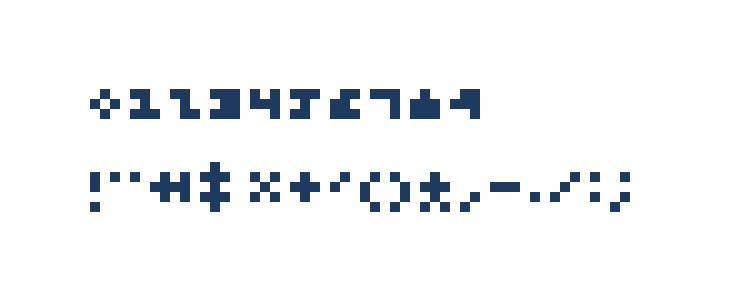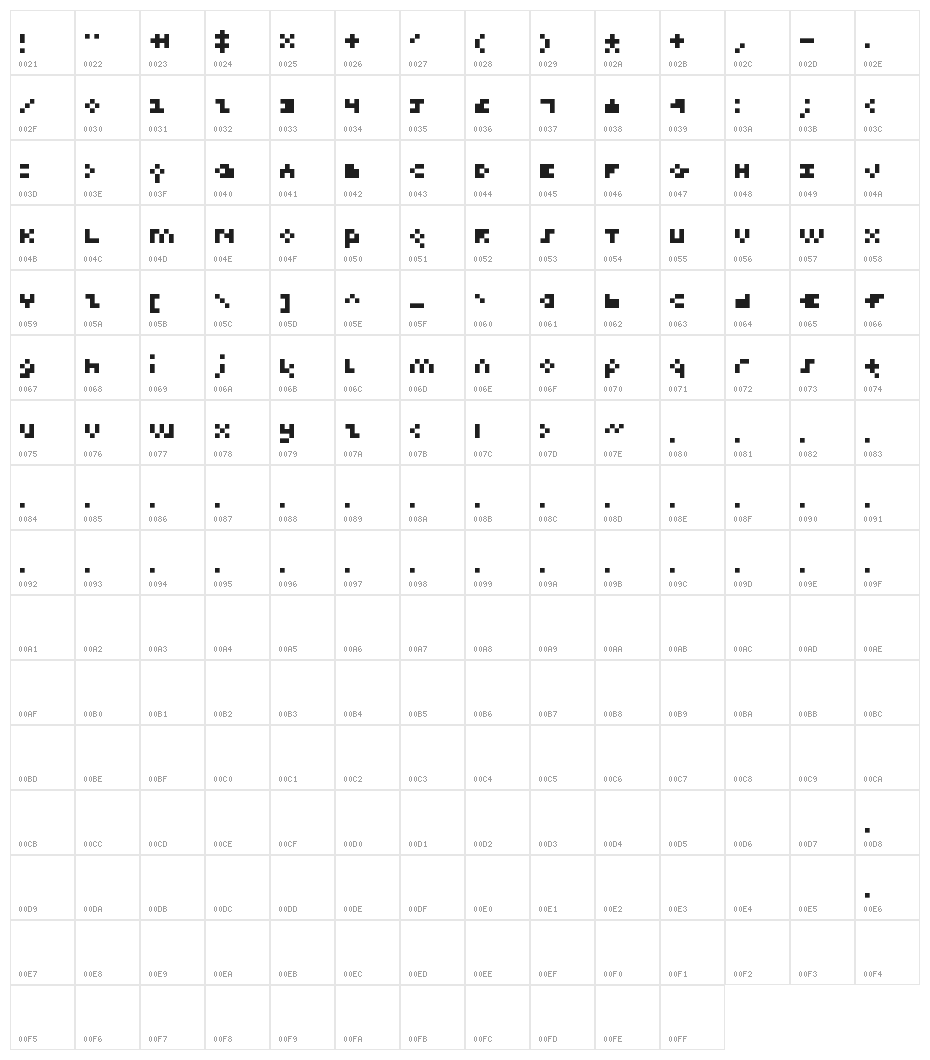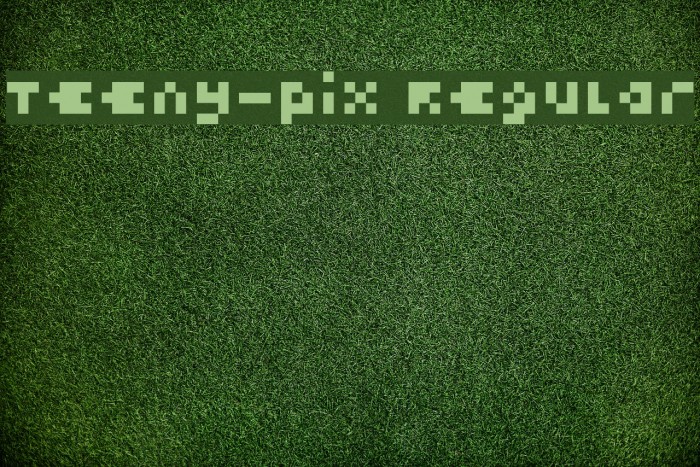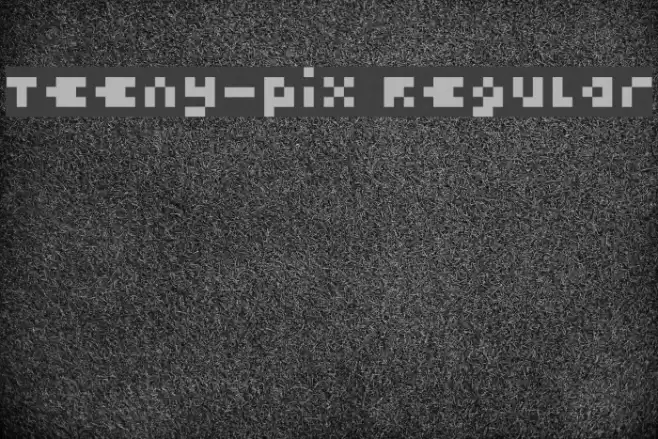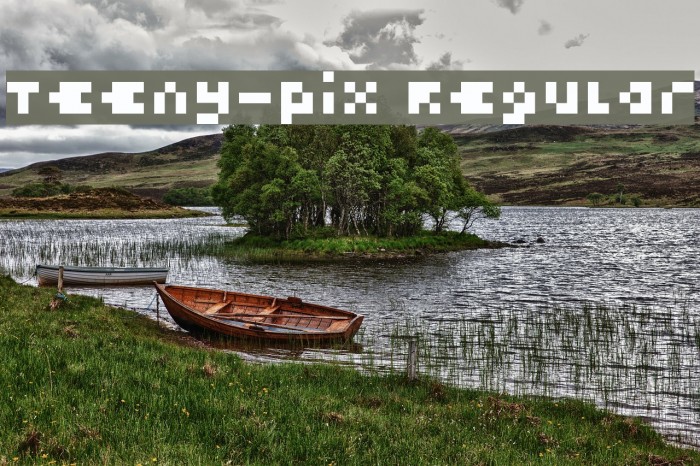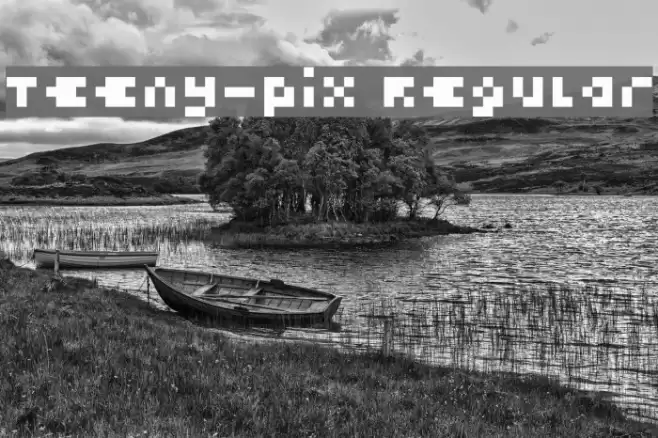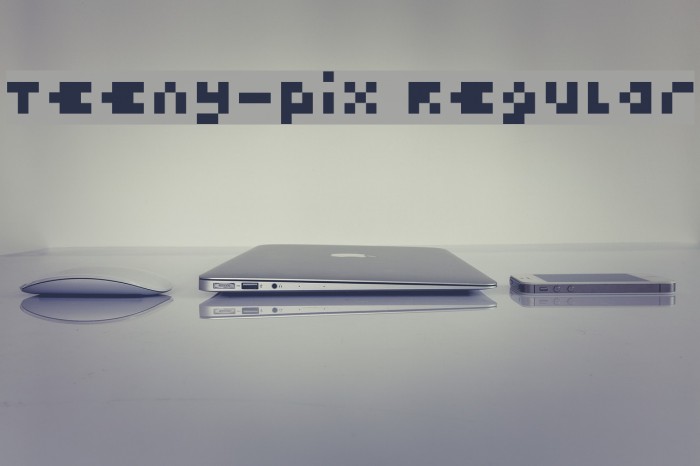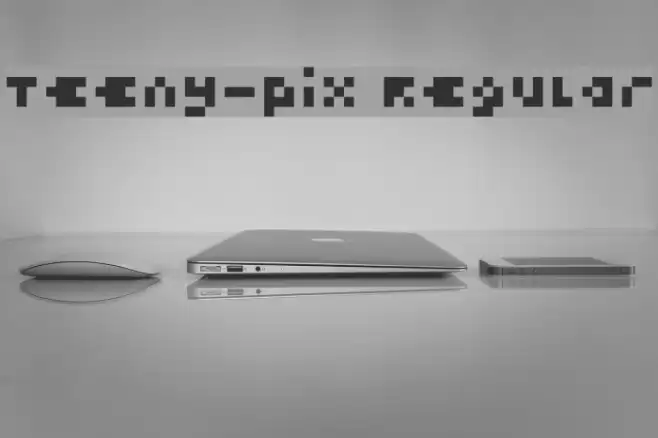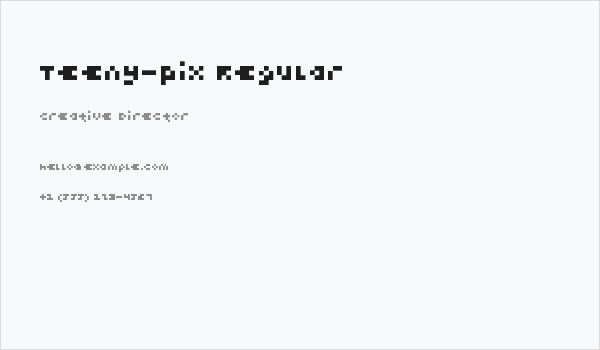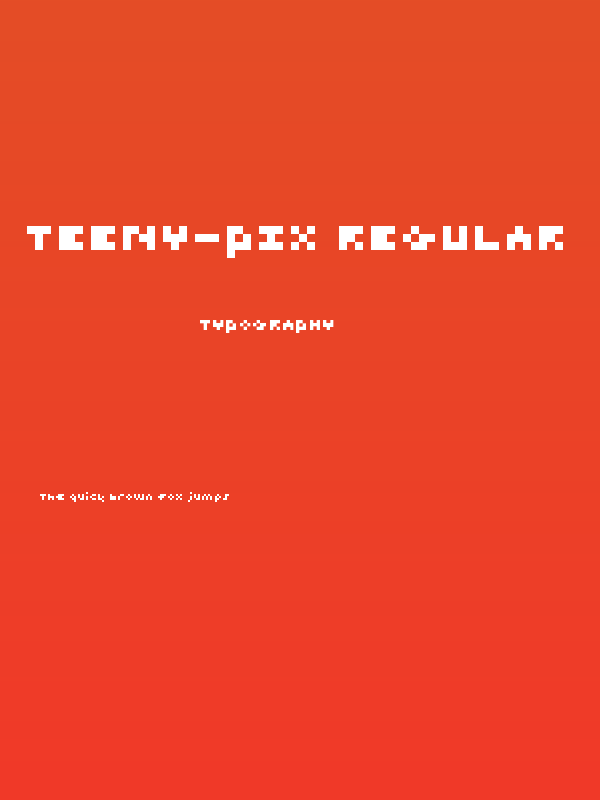
Teeny-Pix Regular Font
Teeny-Pix Regular Description
This font features a pixelated, blocky style reminiscent of early digital displays and retro video games. Each character is constructed with a uniform grid-like structure, giving it a distinctly digital and geometric appearance. The uppercase and lowercase letters maintain a consistent height, contributing to a cohesive visual rhythm. The numerals and special characters follow the same pixelated design, ensuring a uniform aesthetic across all glyphs. This font's nostalgic charm and simplicity make it ideal for projects that aim to evoke a sense of vintage digital technology.
| Use Case | Logos, Headlines, Digital Art |
| Proposed Projects | Ideal for retro video game designs, digital art projects, and nostalgic branding. |